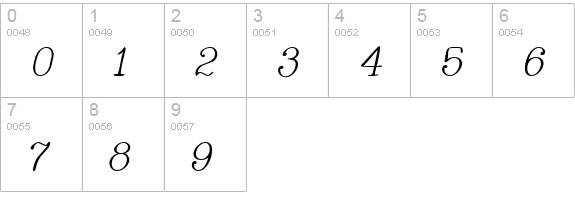
Whackadoo Upper Italic Font Details
Whackadoo Upper Italic is a distinctive, italic variant in the Whackadoo typeface family \xE2\x80\x94 well suited to design and typography projects.
Introducing Whackadoo Upper Italic, a font that exudes creativity, playfulness, and a touch of whimsy. This font is perfect for those seeking a unique and distinctive look for their designs. With its charmingly unconventional letterforms, Whackadoo Upper Italic adds a delightful twist to any project, from posters and invitations to logos and branding materials. What sets Whackadoo Upper Italic apart is not only its captivating aesthetics but also its versatility. This font effortlessly transitions between both digital and print mediums, ensuring that your message will shine through no matter the platform. Its bold and slanted characters command attention while still maintaining a sense of approachability and friendliness. But what truly sets Whackadoo Upper Italic apart is that it is available for free, exclusively at FontsMarket.com. We believe that creativity should be accessible to all, and that's why we're thrilled to offer this font as a complimentary download. Whether you're a professional designer looking to add a touch of whimsy to your projects, or a casual user in search of a font that stands out from the crowd, Whackadoo Upper Italic is here to inspire and elevate your work. So go ahead, embrace your inner artist, and unlock the potential of Whackadoo Upper Italic. Download it today, for free, at FontsMarket.com, and let your imagination run wild. With Whackadoo Upper Italic by your side, your designs will be anything but ordinary.